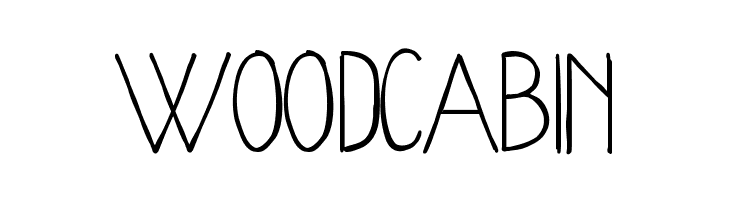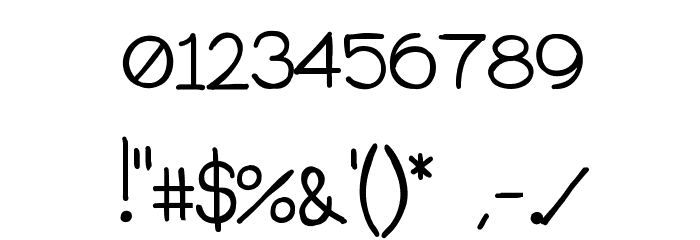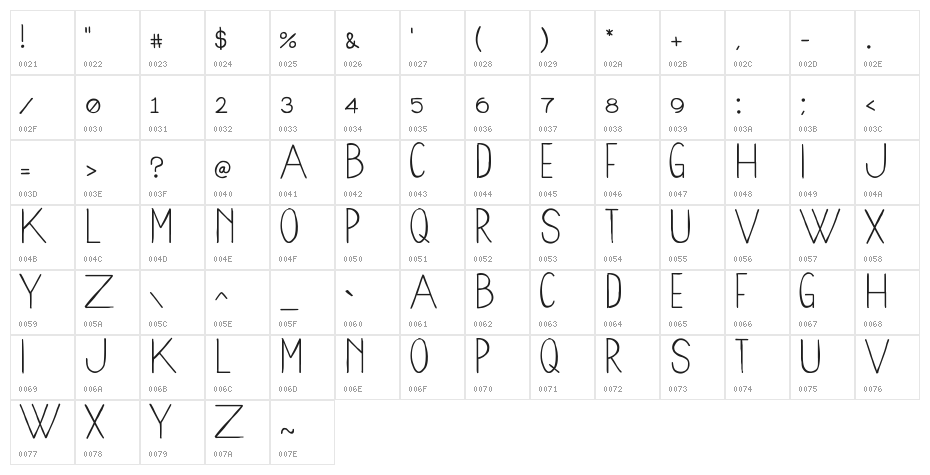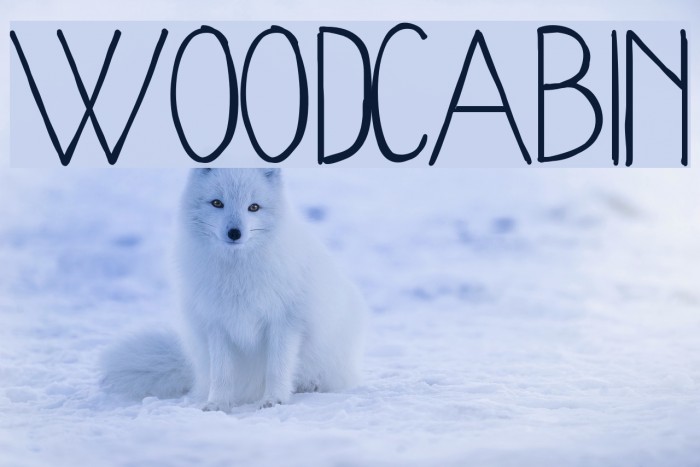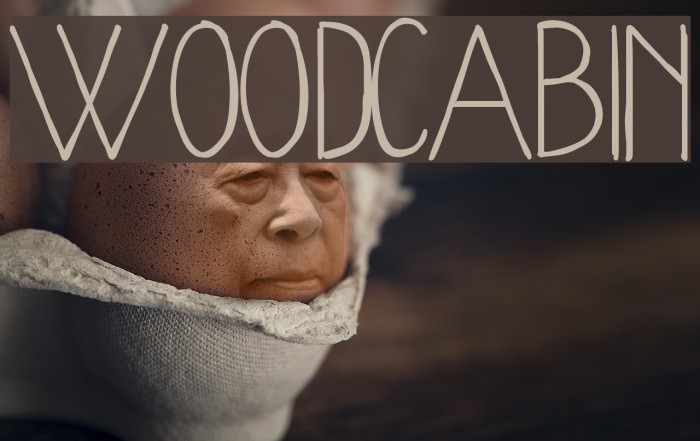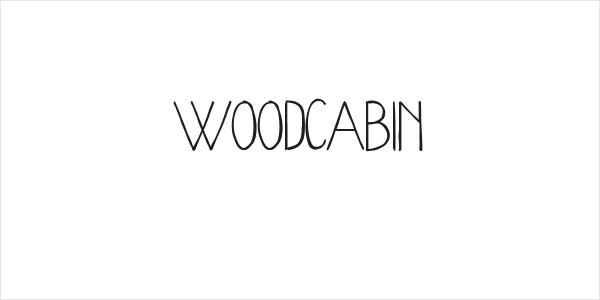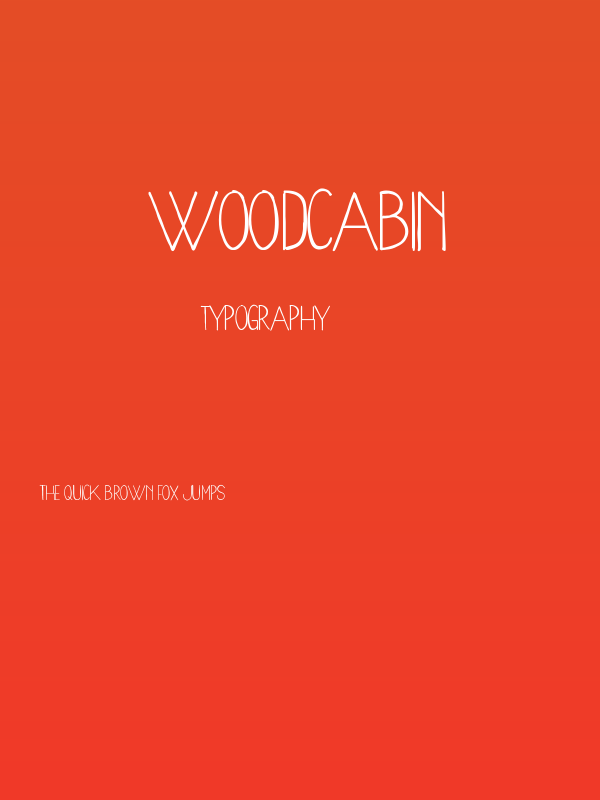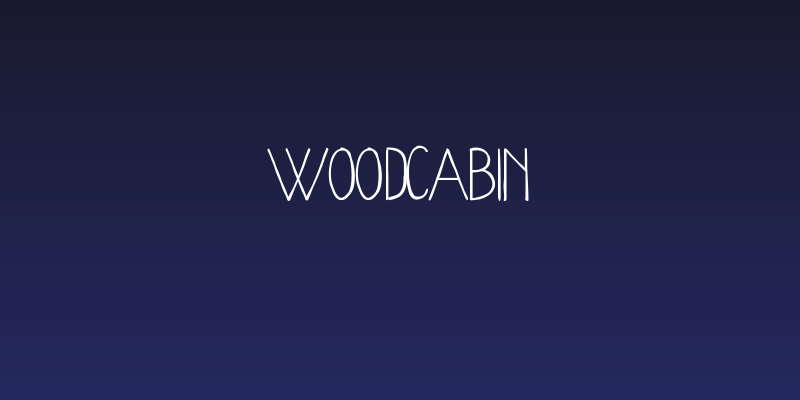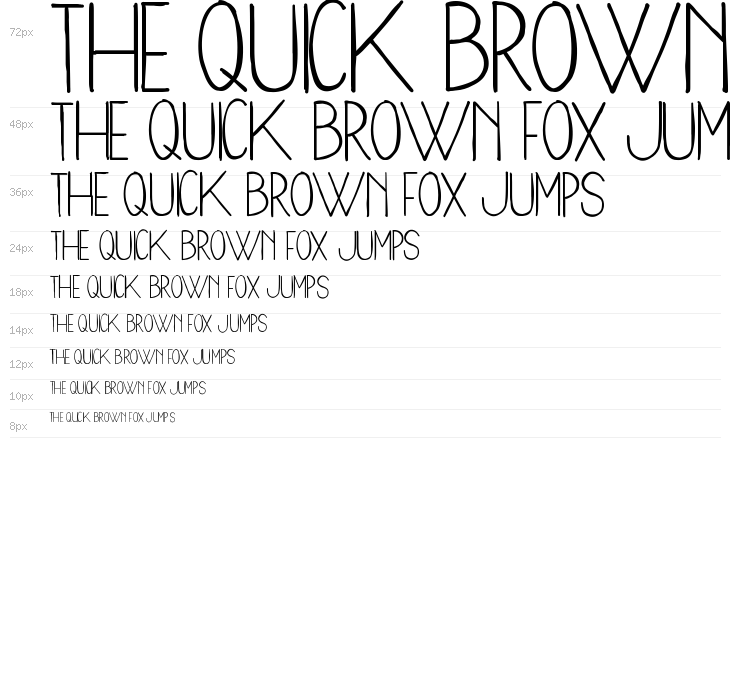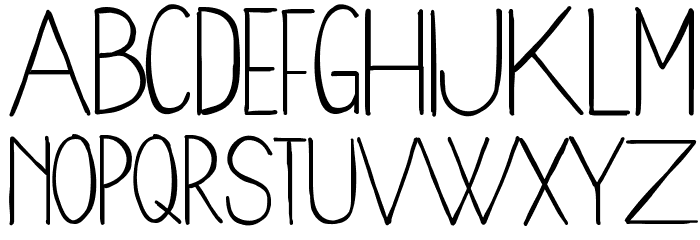
WoodCabin Font
WoodCabin Description
This font features a tall, narrow design with a hand-drawn aesthetic, giving it a rustic and organic feel. The characters are elongated with consistent stroke widths, creating a uniform appearance. The uppercase and lowercase letters maintain a cohesive style, with slightly rounded edges that soften the overall look. The numerals and special characters are designed to match the letterforms, ensuring a harmonious appearance across all text. This font's unique style makes it stand out, while still being legible and versatile for various design applications.
| Overall Style | Rustic |
| Proposed Projects | Ideal for projects that require a rustic or handmade touch, such as branding for organic products, signage for outdoor events, or invitations for rustic-themed weddings. |